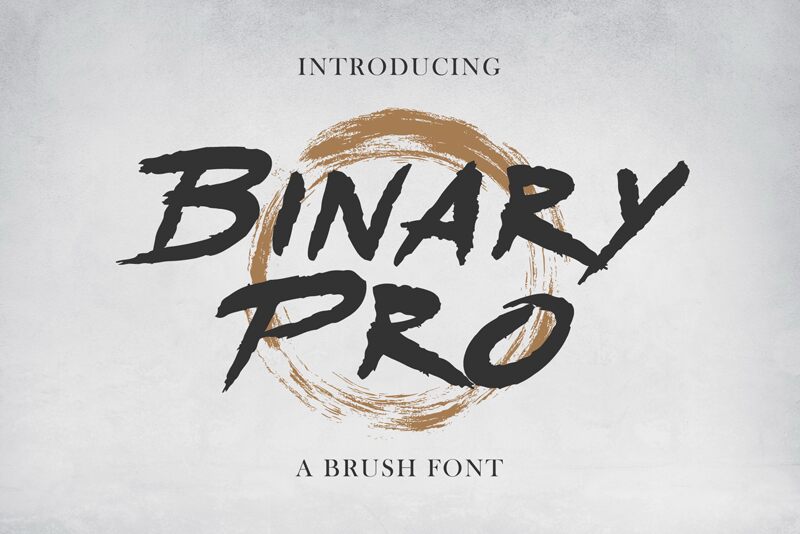
Binary
Binary, a captivating brush font crafted by FG Studios, exudes a dynamic and expressive flair. The bold, sweeping strokes convey a sense of energy and movement, lending a distinct personality to any design. The organic, hand-lettered aesthetic adds a touch of artistry, evocative of the imperfections found in handwritten text. This font's versatility shines through its ability to seamlessly transition between formal and casual settings, making it a compelling choice for a wide range of design projects.
The versatile nature of Binary allows it to thrive in various applications, from eye-catching headlines and impactful logos to distinctive branding materials and striking editorial layouts. Its robust character and fluid forms make it an excellent selection for designs that seek to capture a sense of dynamism and authenticity, whether in the realms of fashion, art, or lifestyle. Binary's unique charm effortlessly elevates any design, infusing it with a captivating and memorable presence.